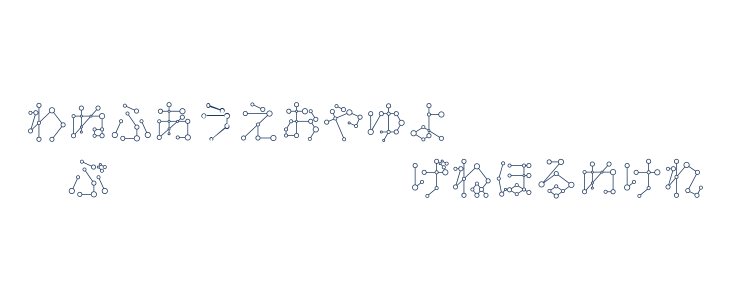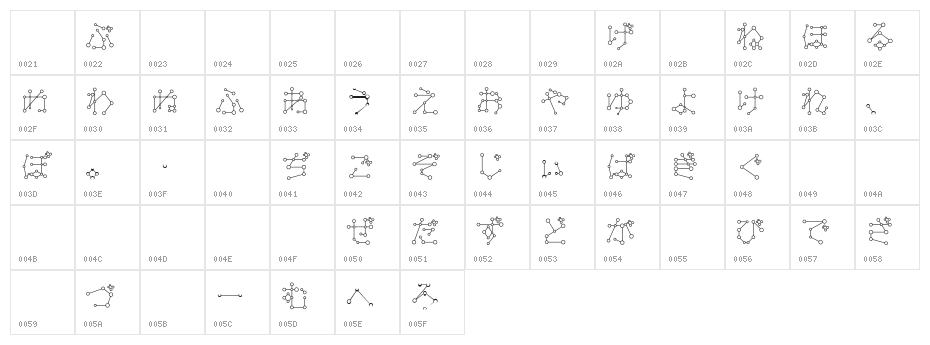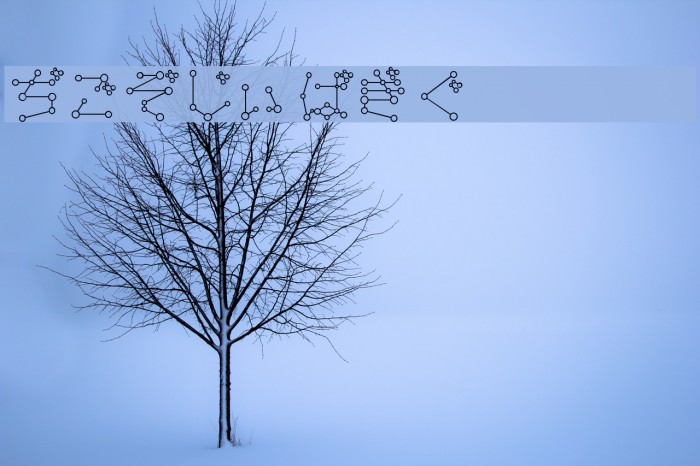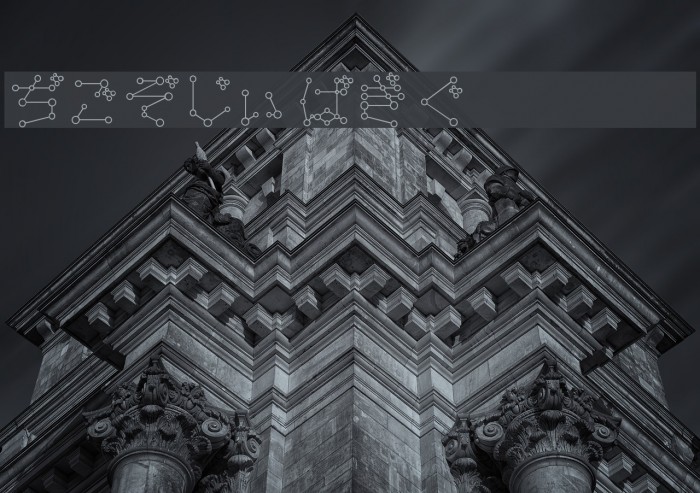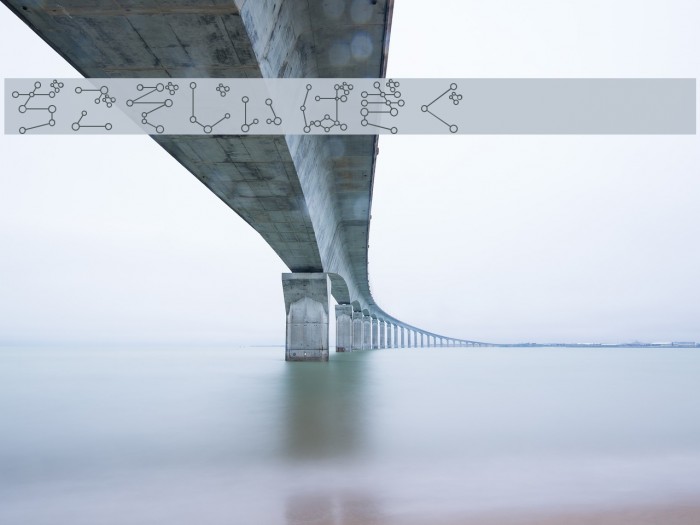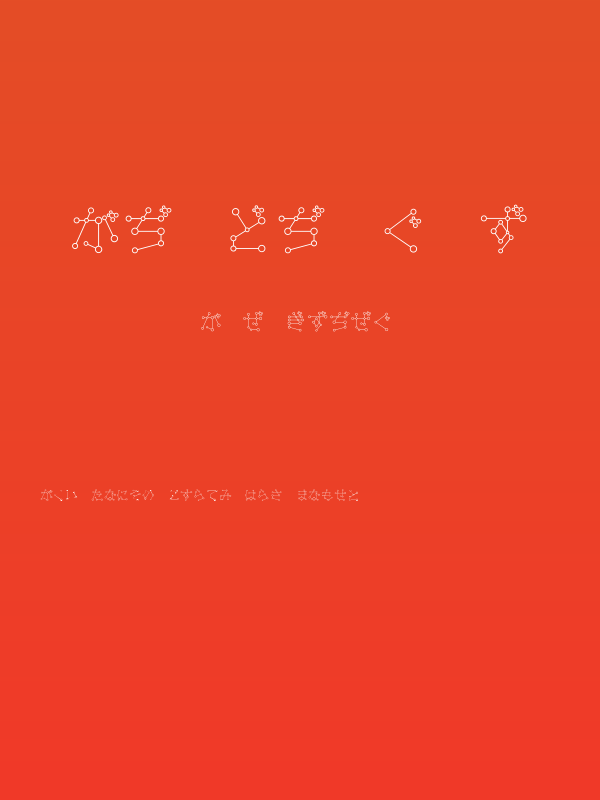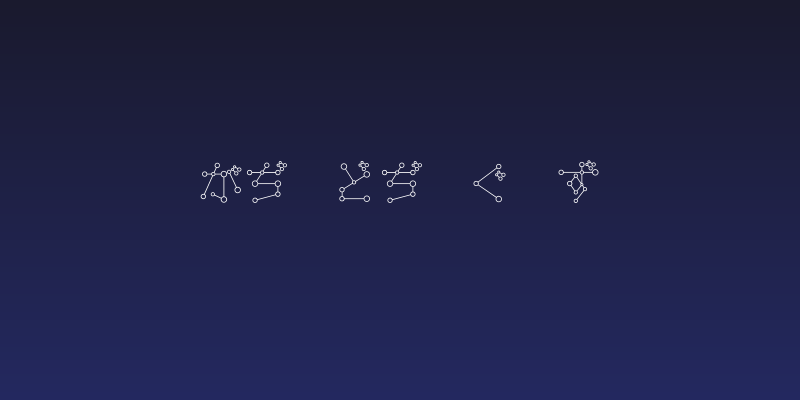
TansanHir Font
TansanHir Description
This font features a unique and intricate design that resembles a network of interconnected nodes and lines, creating a futuristic and abstract appearance. Each character is composed of circles connected by lines, giving it a geometric and technical feel. The design is consistent across all characters, maintaining a uniform style that is both decorative and modern. The font's distinctive style makes it stand out, offering a visually engaging experience that is ideal for creative and artistic projects.
| Use Case | Logos, Posters, Album covers |
| Proposed Projects | Ideal for technology-themed designs, sci-fi projects, digital art, and modern branding. |